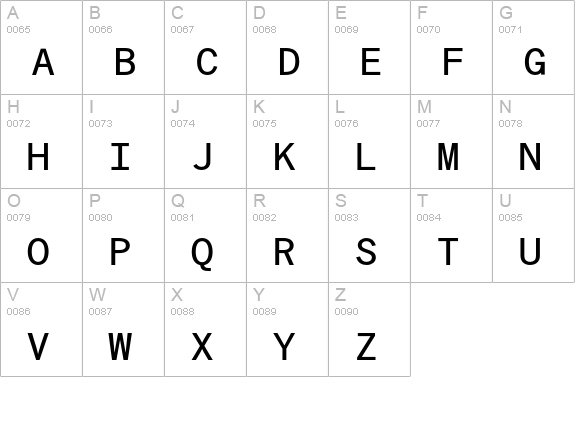
CashEF-Monospace Font Details
CashEF-Monospace font is a sleek and modern typeface designed for clear and legible display. With its monospaced design, CashEF-Monospace brings a touch of sophistication to any project, making it perfect for both digital and print applications. The clean lines and balanced proportions of this font lend a professional and polished look to your designs. What sets CashEF-Monospace font apart is not just its sharp aesthetics, but also its versatility. This font is ideal for coding, programming, web development, and any other application where precise alignment and readability are essential. Whether you are designing a website, creating a technical document, or crafting a sleek presentation, CashEF-Monospace font is the perfect choice to ensure your content stands out. Best of all, CashEF-Monospace font is available for free download at FontsMarket.com. This means you can easily access this premium font without any cost, making it a valuable addition to your font library. Don't miss out on the opportunity to enhance your designs with the sleek and professional look of CashEF-Monospace font - download it today and elevate your projects to the next level.